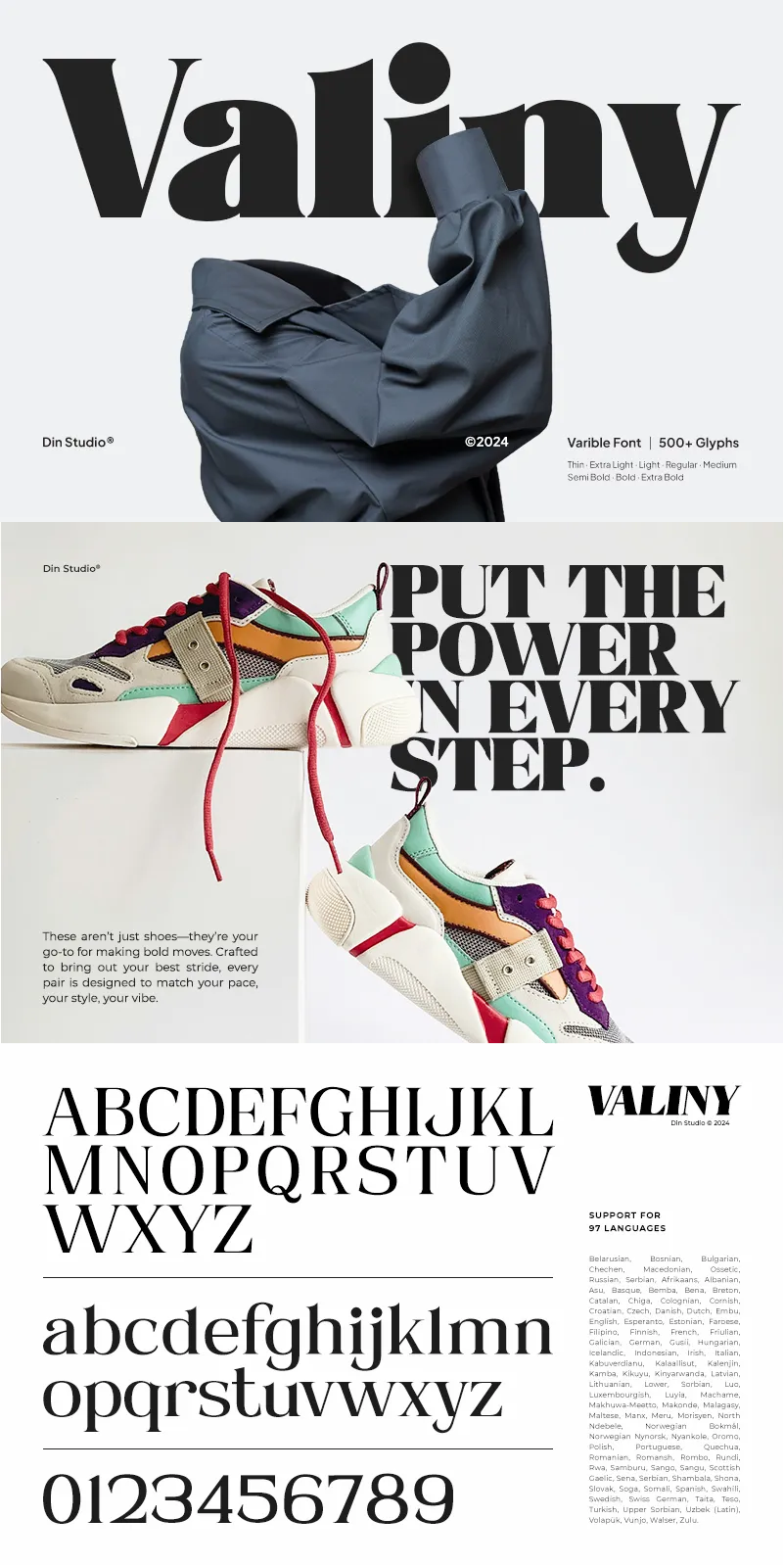
Valiny Font
About Valiny
Valiny, a sophisticated serif font family designed to elevate your creative projects. With 9 distinct weights and elegant Italic versions, Valiny combines timeless elegance, modern flair, and unwavering strength. Its harmonious proportions and refined details make it more versatile.